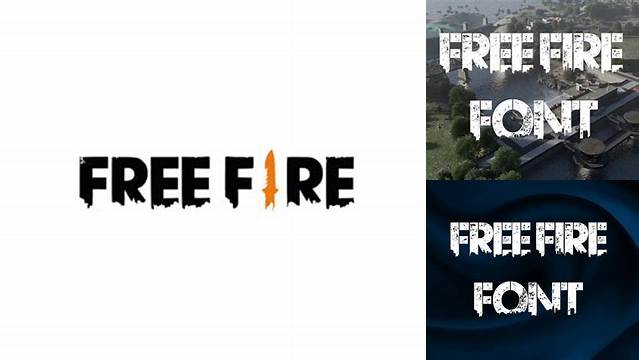
Free Fire Font Download: Customize Your Game Style
Are you a Free Fire fanatic looking to inject some serious style into your game? You've come to the right place! In this guide, we're diving deep into the world of Free Fire fonts, exploring how you can download them, use them, and ultimately, elevate your gaming experience. Let's face it, the default fonts can get a little stale, and who doesn't want their in-game name, clan tag, or even their Free Fire videos to pop with a unique and eye-catching font? This comprehensive guide will equip you with everything you need to know about Free Fire font downloads, ensuring you stand out from the crowd. So, buckle up, guys, and let's get started on this awesome journey of font customization!
Why Customize Your Free Fire Font?
Okay, let's get real for a second. Why should you even bother changing your font in Free Fire? Well, there are several compelling reasons, and trust me, once you experience the difference, you'll be hooked.
- Personalization is Key: In a game as massive as Free Fire, standing out is crucial. Customizing your font allows you to express your individuality and create a unique identity. Think of it as adding your personal signature to your gameplay. A cool font can make your in-game name more memorable, your clan tag more intimidating, and your overall presence more impactful. You are not just another player; you are a player with style!
- Enhanced Visual Appeal: Let's be honest, visual aesthetics matter. A stylish font can significantly enhance the overall visual appeal of your game. It's like giving your game a fresh coat of paint. Imagine your kill feed popping up with a sleek, modern font, or your squad's name displayed in a bold, futuristic typeface. It adds a layer of sophistication and excitement to the game, making it even more immersive.
- Improved Readability: Sometimes, the default fonts can be a bit difficult to read, especially during intense gameplay. Choosing a clear and legible font can make a huge difference in your reaction time and overall performance. A well-chosen font can help you quickly identify teammates, read important messages, and stay on top of the action without straining your eyes.
- Branding Your Content: Are you a Free Fire content creator? Then custom fonts are your secret weapon! Using unique fonts in your videos and thumbnails can help you establish your brand and make your content more recognizable. Think about it – a consistent font style across your videos creates a cohesive visual identity, making your channel more professional and appealing to viewers. It's a simple yet powerful way to stand out in the crowded world of gaming content.
- Making a Statement: Your font choice can say a lot about your personality and playstyle. A bold, aggressive font might convey a sense of dominance, while a more elegant font could suggest a sophisticated and strategic approach. It's like choosing the right outfit for a battle – your font is your visual representation in the game, so make it count!
In conclusion, customizing your Free Fire font is not just about aesthetics; it's about personal expression, enhanced gameplay, and creating a lasting impression. So, let's dive into the exciting world of font downloads and unlock the potential to transform your gaming experience.
Finding the Perfect Free Fire Font
Now that you're convinced about the power of custom fonts, the next step is finding the perfect one for you. But with so many options out there, where do you even begin? Don't worry, guys, I've got you covered. Let's explore some awesome resources and tips for discovering the font of your dreams.
- Font Design Communities: Looking for something truly unique? Consider exploring font design communities like Behance and Dribbble. These platforms showcase the work of talented designers from around the world, and you might stumble upon some incredible custom fonts that you won't find anywhere else. While many of these fonts may come with a price tag, the investment can be well worth it if you're looking for something truly special. Plus, supporting independent designers is always a good thing! These communities are also a great source of inspiration. You can browse through different font designs and get ideas for your own customizations. Don't be afraid to experiment and try out different styles until you find one that truly resonates with you.
- Gaming-Specific Font Websites: As the demand for custom gaming fonts has grown, several websites have emerged that cater specifically to gamers. These websites often feature fonts that are designed to be highly legible and visually appealing in a gaming context. They might also offer fonts that are inspired by popular games or gaming culture. A quick Google search for "gaming fonts" will reveal a variety of options. These websites often curate fonts based on gaming themes, making it easier to find something that matches the vibe of Free Fire. They may also offer font packs or bundles that include multiple fonts, giving you even more options to choose from.
- Font Preview Tools: Before you download a font, it's essential to see how it looks in action. Many websites offer font preview tools that allow you to type in your desired text and see it rendered in the selected font. This is a crucial step in the selection process, as a font might look great in the sample images but not work well with your specific text or in-game context. Take advantage of these tools to ensure that your chosen font is legible and visually appealing in the way you intend to use it. You can also experiment with different font sizes and colors to get a better sense of how the font will look in different settings.
- Consider Font Styles and Themes: Think about the overall style and theme you want to convey with your font. Are you going for a futuristic look? A classic, elegant feel? Or something bold and aggressive? Matching your font to your personal style and gaming persona will help you create a cohesive and impactful visual identity. If you're unsure where to start, try browsing different font styles and seeing what catches your eye. Pay attention to the details, such as the shape of the letters, the thickness of the strokes, and the overall balance of the font. These subtle elements can make a big difference in the overall impact of your font choice.
Finding the perfect Free Fire font is a journey of exploration and discovery. Don't be afraid to experiment, try new things, and have fun with it! With a little bit of research and creativity, you'll be sure to find a font that perfectly reflects your style and elevates your gaming experience.
How to Download and Install Free Fire Fonts
Alright, you've scoured the internet, found some killer fonts, and now you're itching to get them into your game. But how exactly do you download and install these fonts? Don't sweat it, guys, it's a pretty straightforward process. Let's break it down step-by-step.
- Downloading Your Font: The first step is, of course, downloading the font files. Most font websites offer fonts in TTF (TrueType Font) or OTF (OpenType Font) formats. These are the standard font formats compatible with most devices and operating systems. When you find a font you like, simply click the download button (usually labeled as "Download," "Free Download," or something similar). The font file will typically be downloaded as a ZIP archive. Once the download is complete, locate the ZIP file on your computer or device and extract its contents. Inside, you should find one or more TTF or OTF files. These are the font files that you'll need to install. Be sure to download fonts from reputable sources to avoid any potential security risks. Always check the website's reputation and read user reviews before downloading anything. And remember to scan the downloaded files with your antivirus software as an extra precaution.
- Installing Fonts on Android: If you're playing Free Fire on an Android device, the installation process is slightly different depending on your device manufacturer and Android version. However, the general steps are as follows:
- Locate the downloaded font file (TTF or OTF) in your device's storage. You can use a file manager app to browse your device's folders.
- Tap on the font file. This should open a preview of the font.
- Look for an "Install" button or option. It might be labeled differently depending on your device, but it should be fairly obvious. Tap on the install button to install the font.
- Alternatively, you can use a font installer app from the Google Play Store. These apps can simplify the font installation process and offer additional features like font management and previews. Some popular font installer apps include iFont, HiFont, and FontFix. Keep in mind that some Android devices may require you to root your device to install custom fonts. Rooting your device gives you more control over your system, but it can also void your warranty and pose security risks. Proceed with caution and only if you're comfortable with the process.
- Installing Fonts on iOS: Unfortunately, installing custom fonts directly on iOS devices is not officially supported. Apple's operating system has strict security restrictions that prevent users from installing fonts outside of the App Store. However, there are some workarounds, such as using third-party apps that allow you to use custom fonts within specific applications. For example, you can use apps like Phonto or AnyFont to add custom fonts to images and videos. These apps allow you to import fonts and use them within the app's editing tools. While you won't be able to use custom fonts system-wide on iOS, these apps offer a way to add personality and style to your content.
- Using Fonts in Free Fire: Now, here's the catch. Free Fire itself doesn't directly support custom fonts. The game uses its own set of fonts for the user interface and in-game text. So, you won't be able to change the font within the game's settings. However, you can still use your downloaded fonts in other ways related to Free Fire, such as:
- Creating custom in-game names: You can use a font generator website or app to create your in-game name using your downloaded font. Then, simply copy and paste the generated text into the game's name change field.
- Designing clan logos and banners: Use your fonts to create eye-catching visuals for your clan. This will help your clan stand out and attract new members.
- Editing Free Fire videos and thumbnails: Use your fonts to add stylish text overlays and titles to your videos. This will make your content more engaging and professional-looking.
- Creating social media posts and graphics: Use your fonts to create visually appealing content for your social media channels. This will help you build your brand and connect with your audience.
While you can't directly change the font within Free Fire, there are still plenty of ways to incorporate your downloaded fonts into your Free Fire experience. Get creative and have fun with it!
Font Generators: Creating Stylish In-Game Names
Since Free Fire doesn't natively support custom fonts, font generators are your best friend for creating stylish in-game names. These handy tools allow you to type in your desired name and then transform it into a variety of cool and unique fonts and symbols. It's like giving your name a makeover! Let's explore how font generators work and some popular options.
- How Font Generators Work: Font generators work by utilizing Unicode characters and symbols that resemble different font styles. Unicode is a universal character encoding standard that assigns a unique code to each character, symbol, and glyph across different languages and platforms. Font generators take advantage of these Unicode characters to create text that appears in various styles, such as bold, italic, cursive, and more. They essentially map your input text to a set of visually similar Unicode characters, creating the illusion of a custom font. The generated text can then be copied and pasted into applications and games that support Unicode characters, including Free Fire. It's important to note that these aren't true fonts in the traditional sense. They're more like stylized text using Unicode characters. This means that the appearance of the text may vary slightly depending on the device and platform it's displayed on. However, for most purposes, the generated text looks very similar to a custom font.
- Popular Font Generator Websites and Apps: There are numerous font generator websites and apps available online, each offering a slightly different set of fonts and features. Some popular options include:
- Nickfinder: Nickfinder is a website and app that specializes in generating cool nicknames and stylish text for games and social media. It offers a wide variety of fonts, symbols, and decorations that you can use to create a unique in-game name. Nickfinder also has a feature that allows you to save your favorite names and generate random names based on your preferences.
- LingoJam: LingoJam is a simple and easy-to-use font generator website that offers a variety of text transformations, including different font styles, emojis, and symbols. It's a great option for quickly generating stylish text for your Free Fire name or other purposes. LingoJam also has a feature that allows you to create your own custom text transformations, giving you even more control over the appearance of your text.
- Cool Fancy Text Generator: This website offers a wide range of fancy text styles, including cursive, bold, italic, and more. It also includes a variety of symbols and decorations that you can add to your text. Cool Fancy Text Generator is a versatile tool that can be used for a variety of purposes, from creating stylish in-game names to generating eye-catching social media posts.
- Fancy Text Symbols: This website focuses on providing a collection of fancy text symbols and characters that you can copy and paste into your text. It's a great option if you want to add unique symbols and decorations to your Free Fire name. Fancy Text Symbols has a vast library of symbols to choose from, including stars, hearts, arrows, and more.
- IGN Generators: Many websites and apps offer specific IGN (In-Game Name) generators that are tailored for creating cool and memorable names for games like Free Fire. These generators often include a combination of font styles, symbols, and name suggestions to help you come up with the perfect name. IGN Generators can be a great source of inspiration if you're struggling to come up with a name on your own.
- Tips for Using Font Generators Effectively: While font generators are a great tool, there are a few things to keep in mind to ensure you get the best results:
- Keep it legible: While fancy fonts can look cool, it's important to choose a font that is still easy to read. Avoid fonts that are too cluttered or distorted, as they may be difficult for other players to decipher.
- Consider the length: Free Fire has a character limit for in-game names, so make sure your generated name fits within the limit. Some fonts may take up more space than others, so keep this in mind when choosing a font style.
- Test it in-game: Before you finalize your name, it's a good idea to test it out in the game to see how it looks. This will give you a better sense of the font's legibility and overall appearance.
- Don't overdo it: While adding symbols and decorations can make your name stand out, it's important not to overdo it. Too many symbols can make your name look cluttered and difficult to read.
- Be unique and creative: The goal is to create a name that is both stylish and memorable. Don't be afraid to experiment with different fonts, symbols, and name combinations to find something that truly represents your personality.
Font generators are a fantastic way to add some personality and flair to your Free Fire name. Experiment with different options and find a style that truly reflects your gaming persona. Go out there and make a statement with your name!
Level Up Your Free Fire Style Today!
So there you have it, guys! A comprehensive guide to Free Fire fonts, covering everything from finding and downloading them to using font generators for creating stylish in-game names. While Free Fire doesn't directly support custom fonts within the game, there are still plenty of ways to express your individuality and enhance your gaming experience through font customization.
Remember, customizing your fonts is about more than just aesthetics; it's about creating a unique identity, improving readability, and branding your content. By using custom fonts in your videos, thumbnails, social media posts, and clan logos, you can elevate your Free Fire presence and stand out from the crowd.
Don't be afraid to experiment with different fonts and styles until you find the perfect fit for your personality and playstyle. Explore online font repositories, font design communities, and gaming-specific font websites to discover hidden gems. Take advantage of font preview tools to see how your chosen font looks in action, and don't forget to use font generators to create stylish in-game names that make a statement.
Most importantly, have fun with it! Font customization is a creative process, so embrace your imagination and let your style shine. With a little bit of effort, you can transform your Free Fire experience and make it truly your own.
Now go forth and level up your Free Fire style today!